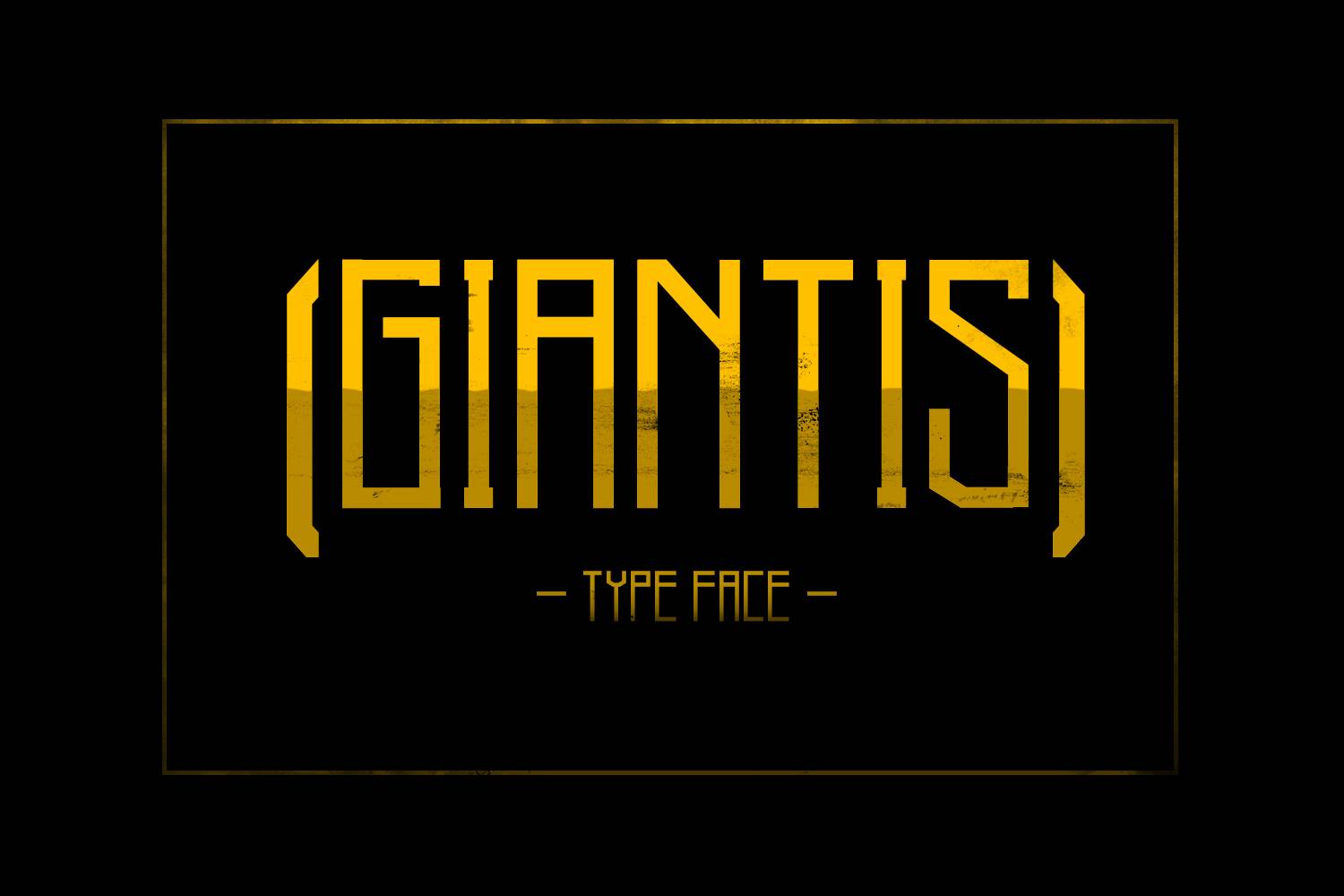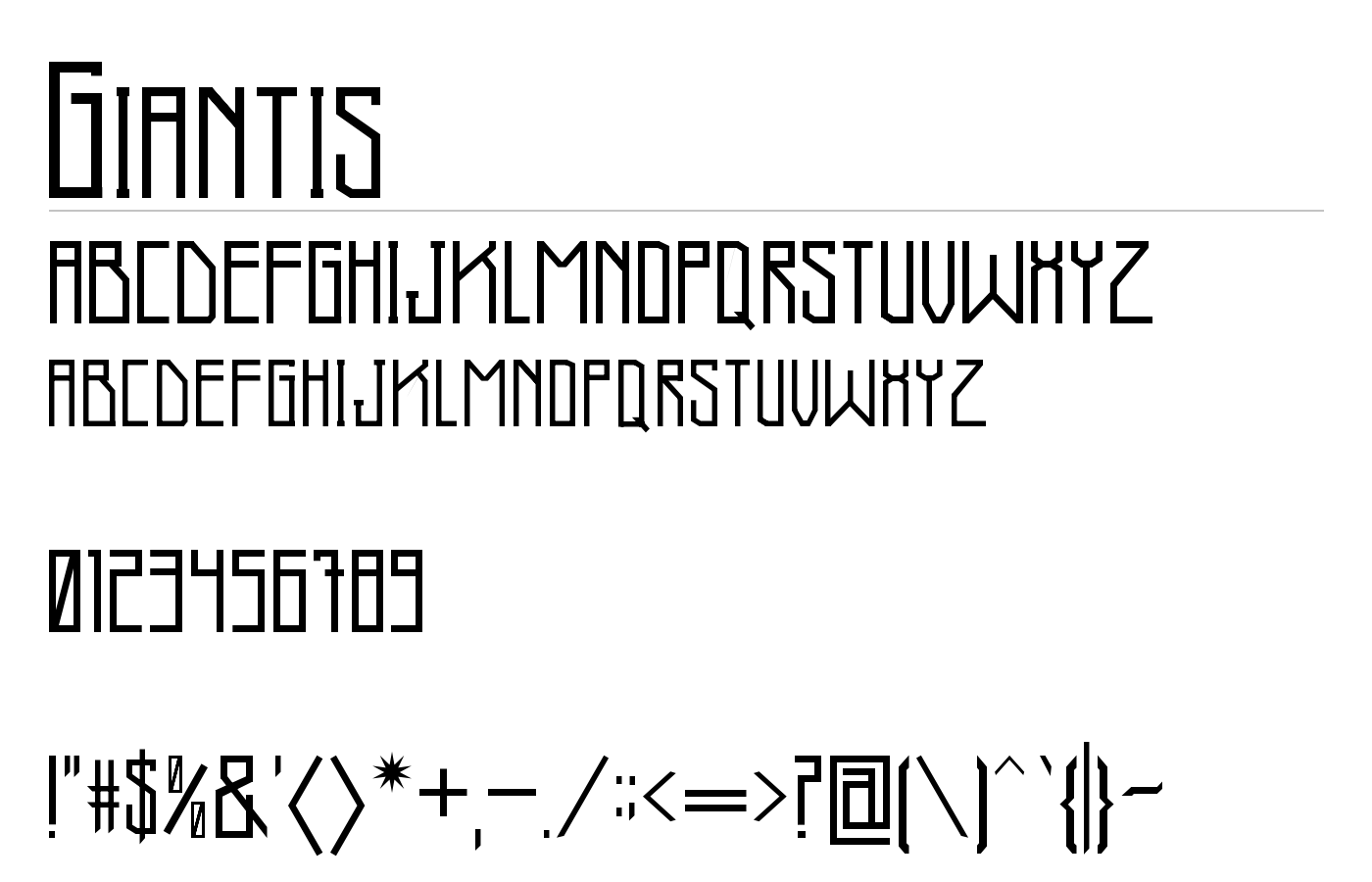
Giantis is a tall, narrow sans serif font with a modern, geometric style that features sharp angles and consistent stroke weight. Its condensed letterforms and high x-height give it a sleek, technical feel, making it ideal for futuristic branding, headlines, or editorial projects seeking a distinctive and edgy look. This font works best where a strong, modern impression is needed without sacrificing clarity or style.
Giantis Font
About Giantis Font